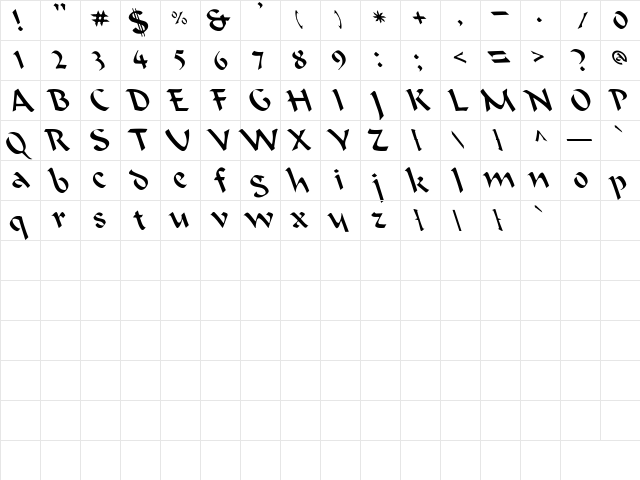
Beanie Lefty Casual Regular
Design Context for Beanie Lefty Casual Typeface
Beanie Lefty Casual is a composed and adaptable typeface that performs quietly and consistently across a wide range of design contexts.
Pro Tip: Use Beanie Lefty Casual in both headline and body roles to test its range before committing to a single application.